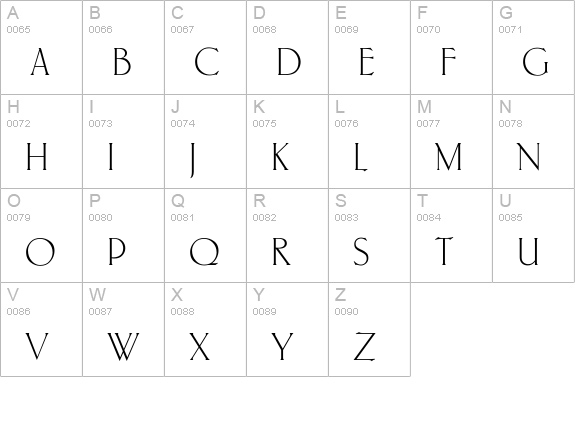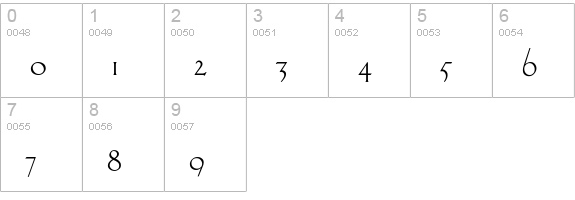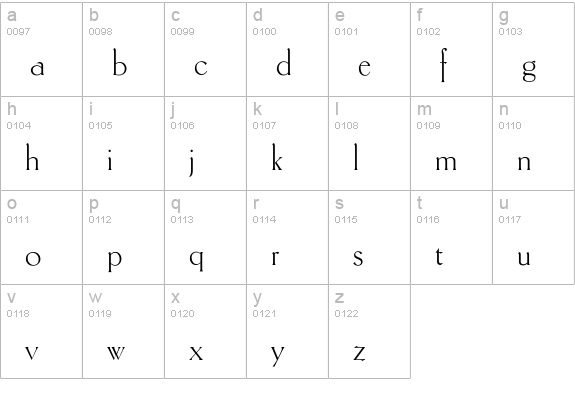
CarltonPlain Font Details
CarltonPlain font is a timeless and elegant typeface that exudes sophistication and charm. With its clean lines and classic design, this font is perfect for a wide range of design projects, from invitations to branding to print materials. What sets CarltonPlain font apart is not just its refined aesthetics, but also the fact that it is available for free download at FontsMarket.com. Yes, you read that right - this high-quality font can be yours at no cost, allowing you to elevate your designs without breaking the bank. Whether you're a seasoned designer looking for a new go-to font or a beginner exploring typography for the first time, CarltonPlain font is a versatile choice that will add a touch of class to any project. Download it today and see for yourself the impact it can make on your designs.